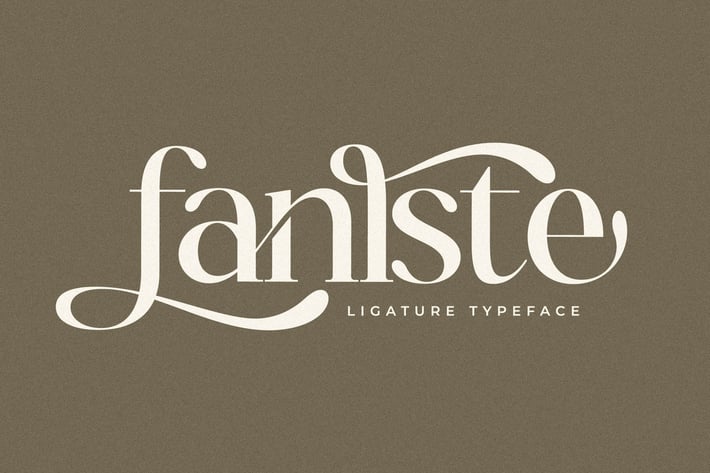
Fanlste Ligature Typeface Font
Faniste is a luxurious ligature typeface designed to add elegance and sophistication to any design project. With its refined curves and stylish ligatures, this font is perfect for branding, fashion editorials, wedding invitations, and premium packaging. The combination of modern and vintage aesthetics makes Faniste a versatile choice for high-end typography.
- Unique Ligatures & Alternates – Enhances the beauty of each letter
- Elegant Serif Style – Perfect for luxury branding and editorial design
- Timeless & Versatile – Ideal for fashion, beauty, and creative projects
- Multilingual Support – Covers multiple languages for global use
- Professional & Stylish – Designed for high-end typography needs
- Complete Character Set: Uppercase, lowercase, numerals, punctuation, and ligatures